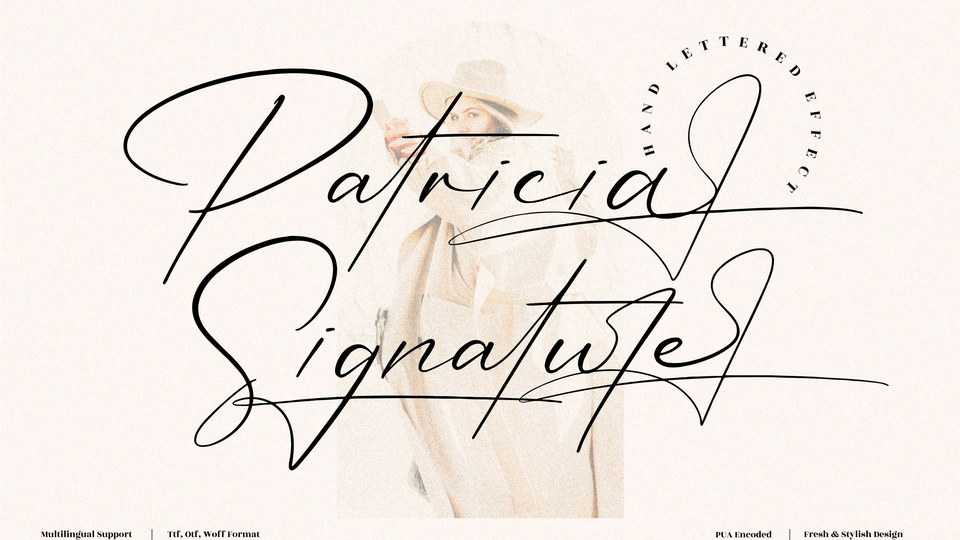
Download Patricia Signature, a thin and delicate script font that exudes elegance and class. Patricia Signature was particularly crafted for those who need a beautiful and refreshing look to their designs.